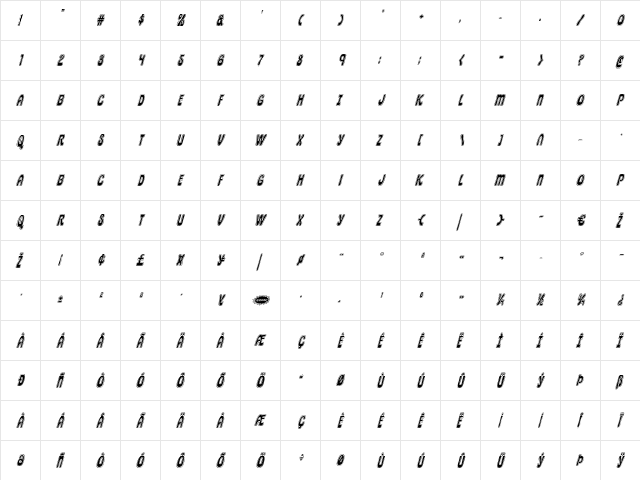
Pepperland Academy Italic Italic
Design Context for Pepperland Academy Italic Typeface
Pepperland Academy Italic is a composed and adaptable typeface that performs quietly and consistently across a wide range of design contexts. The slanted form adds forward momentum and visual energy.
Pro Tip: Use Pepperland Academy Italic for emphasis, pull quotes, and subheadings where its slanted energy can add rhythm to the layout.